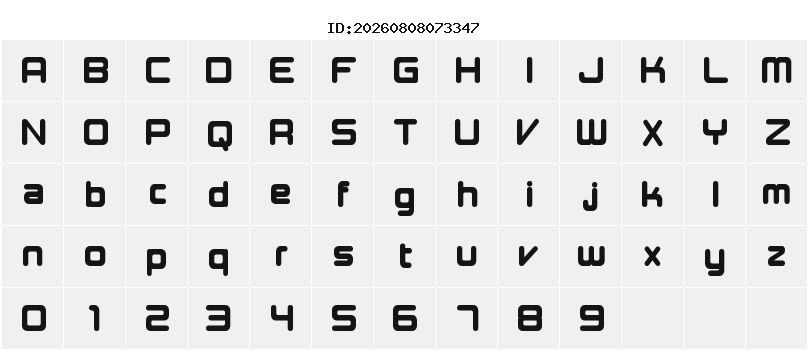
About Presario Text.ttf
Presario Text.ttf is a modern, elegant sans-serif font designed for ultimate readability and visual harmony. Perfect for branding, headlines, web design, and print materials.